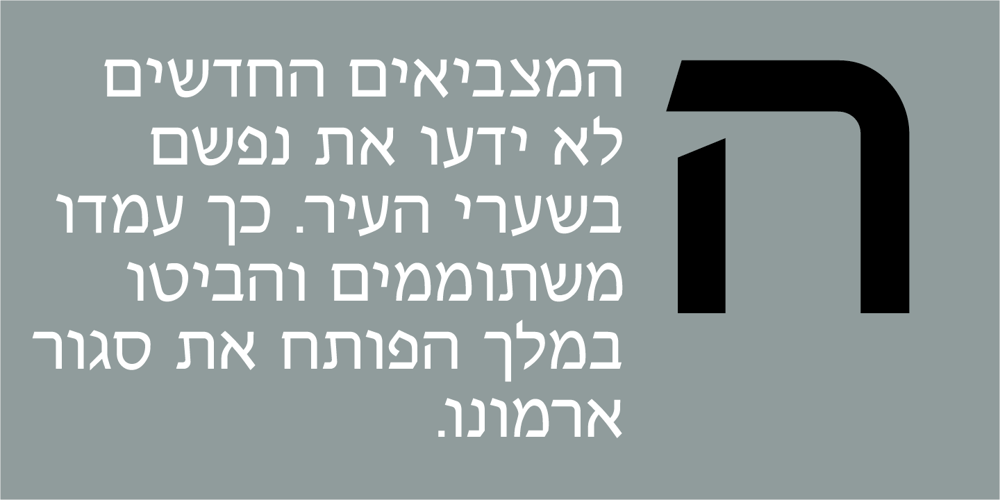
Single MF Font Family was designed by Zvika Rosenberg and published by Masterfont. Single MF contains 3 styles and family package options. A practical san serif font family with 3 weights for all your needs: headlines, body text, signage etc. High legibility at small sizes.